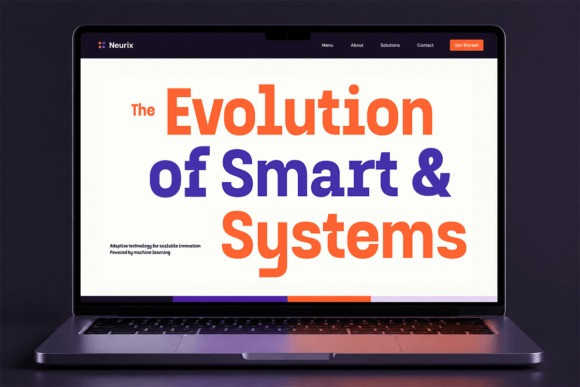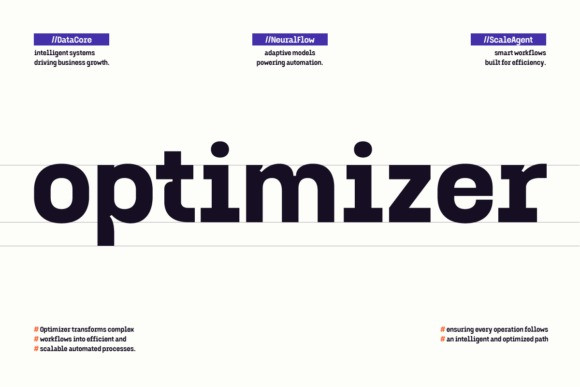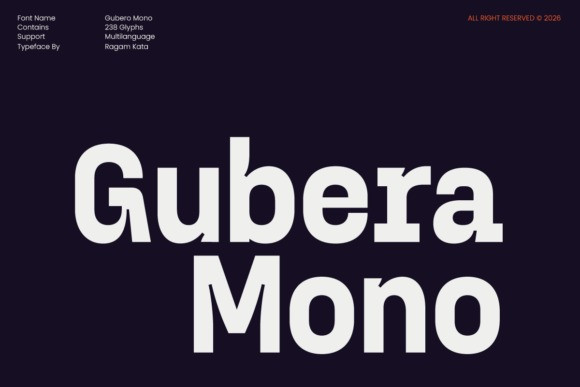
Gubera Mono Font
Gubera Mono Font is a bold modern monospace font crafted for designers who want to combine technical precision with strong visual impact. Whether you’re building a futuristic brand, designing an innovative product, or creating editorial layouts with a modern edge, Gubero Mono delivers confident typography that stands out.